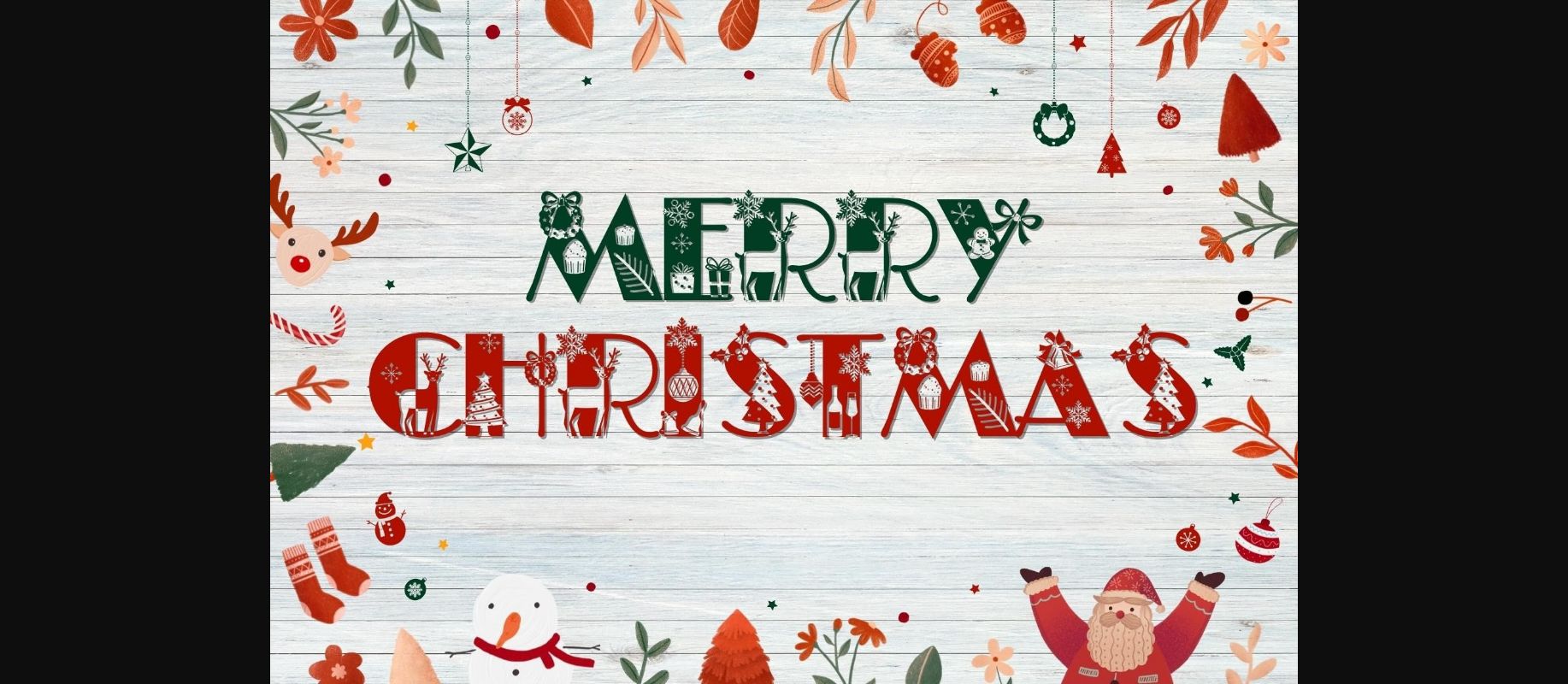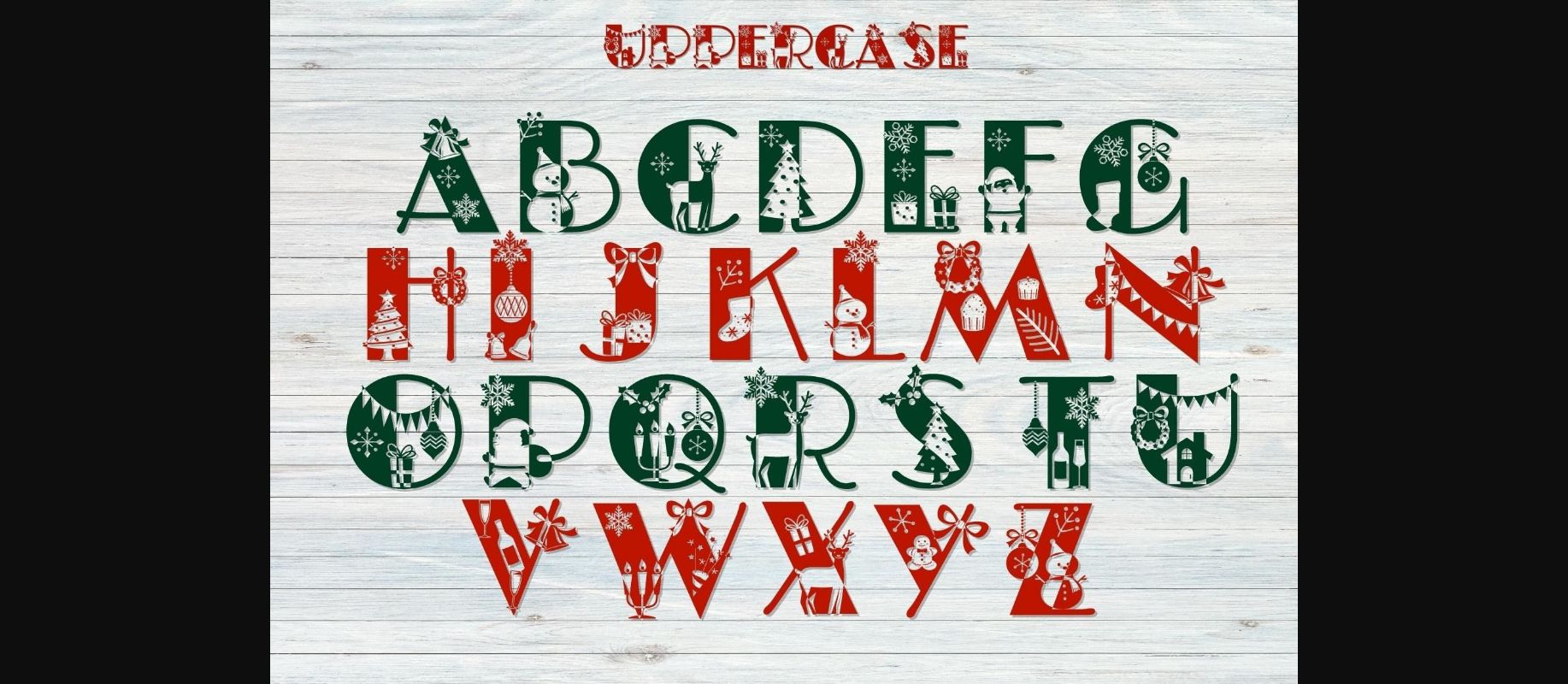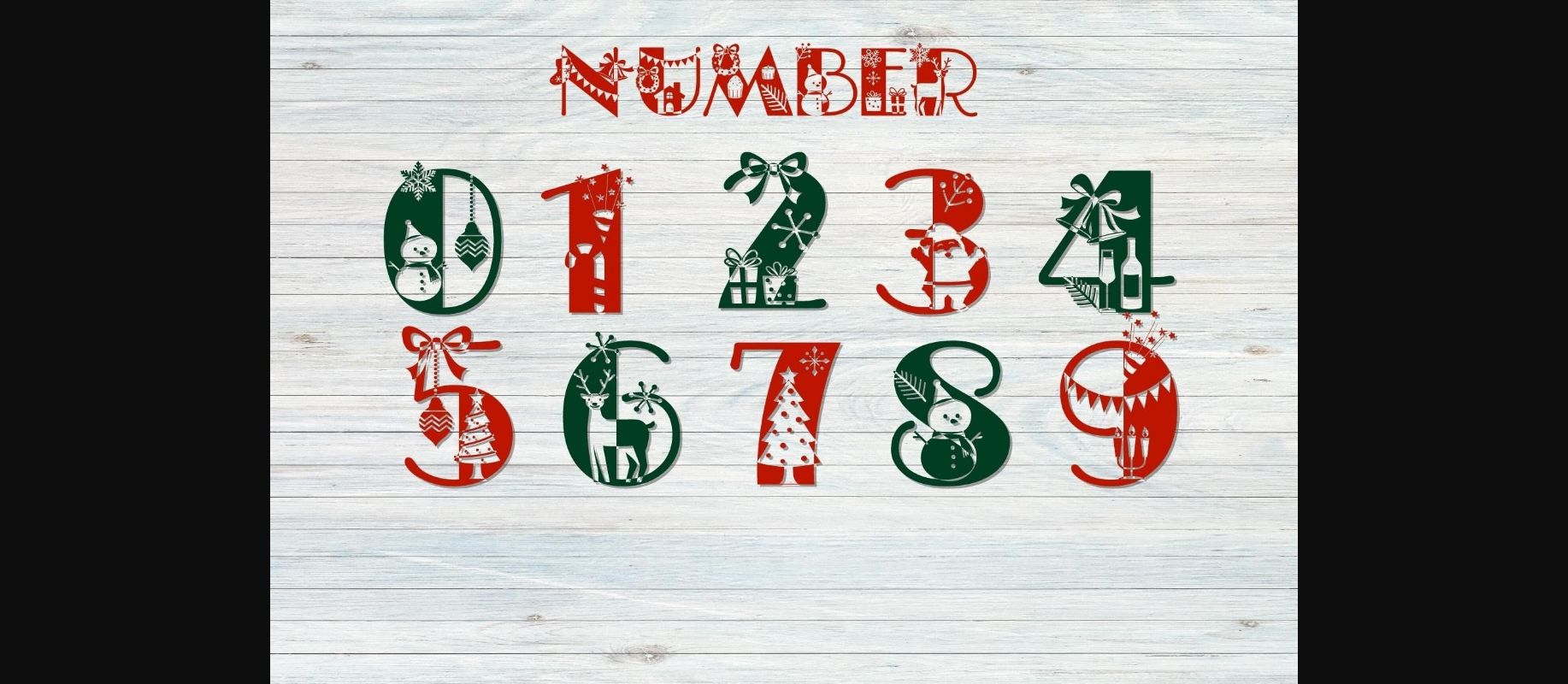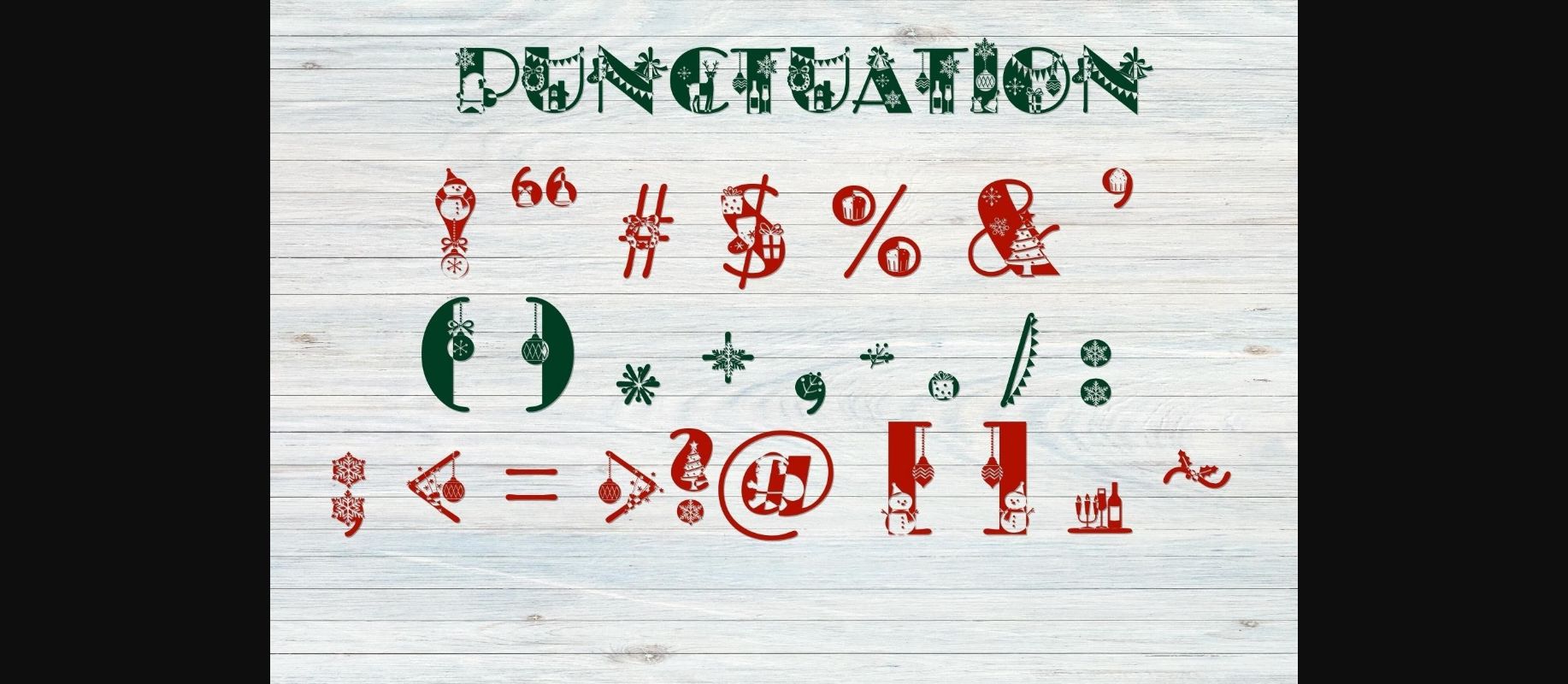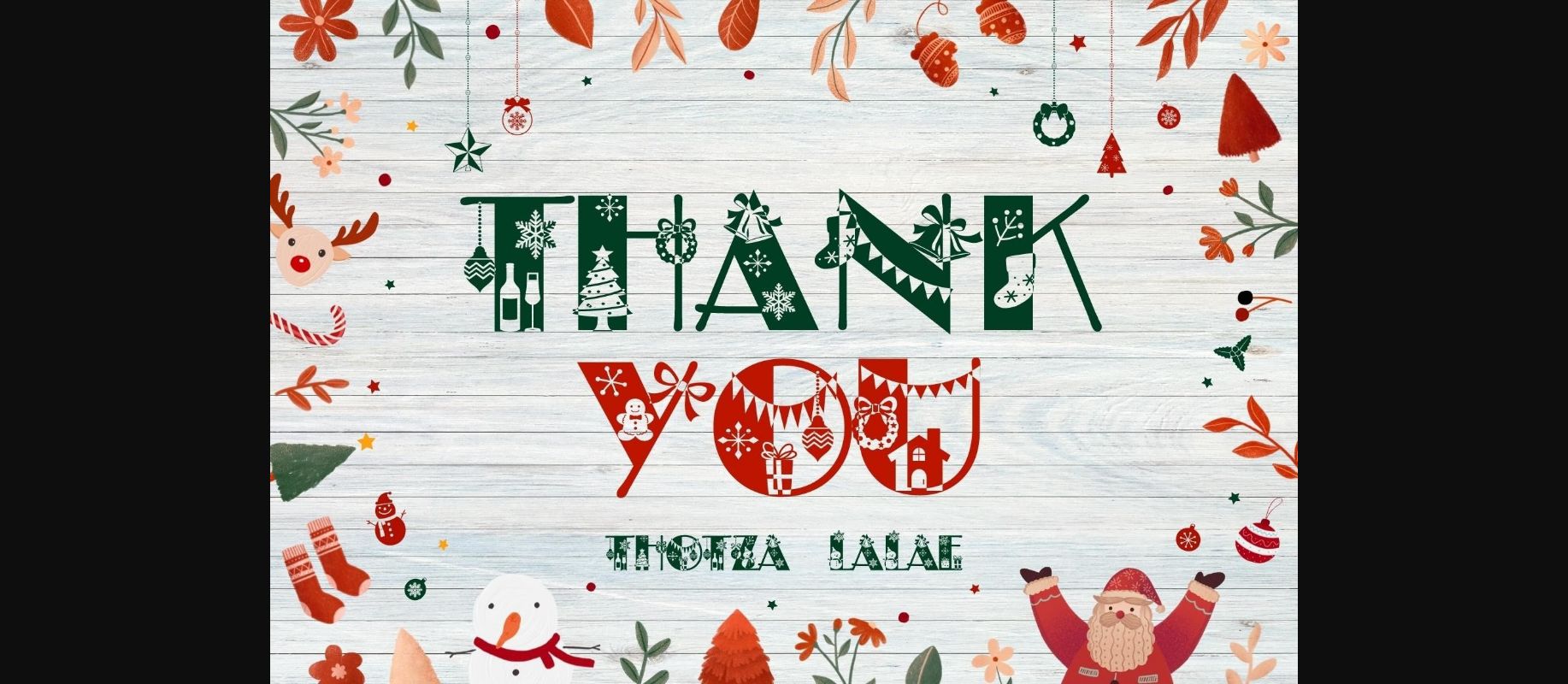
About Merry Christmas Font
Merry Christmas is a fun and festive decorative font. Cheerful and bright, this font is perfect for all your winter holiday projects.